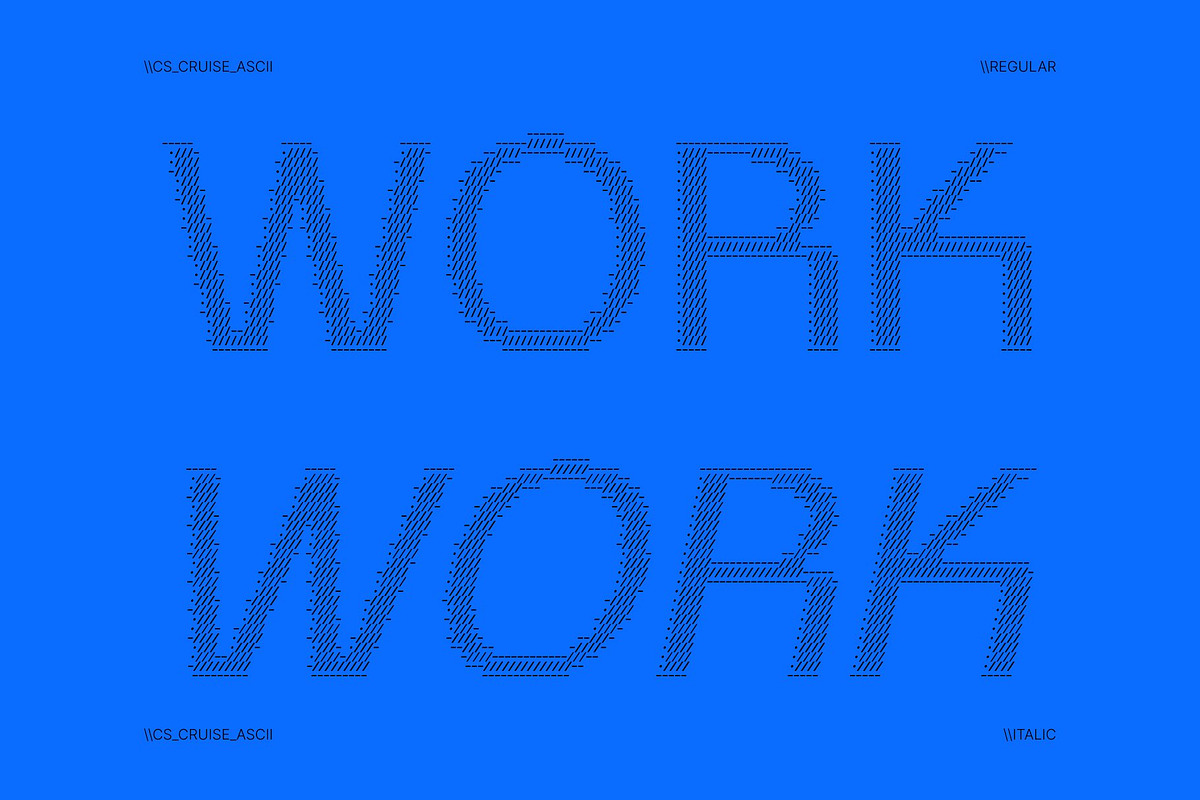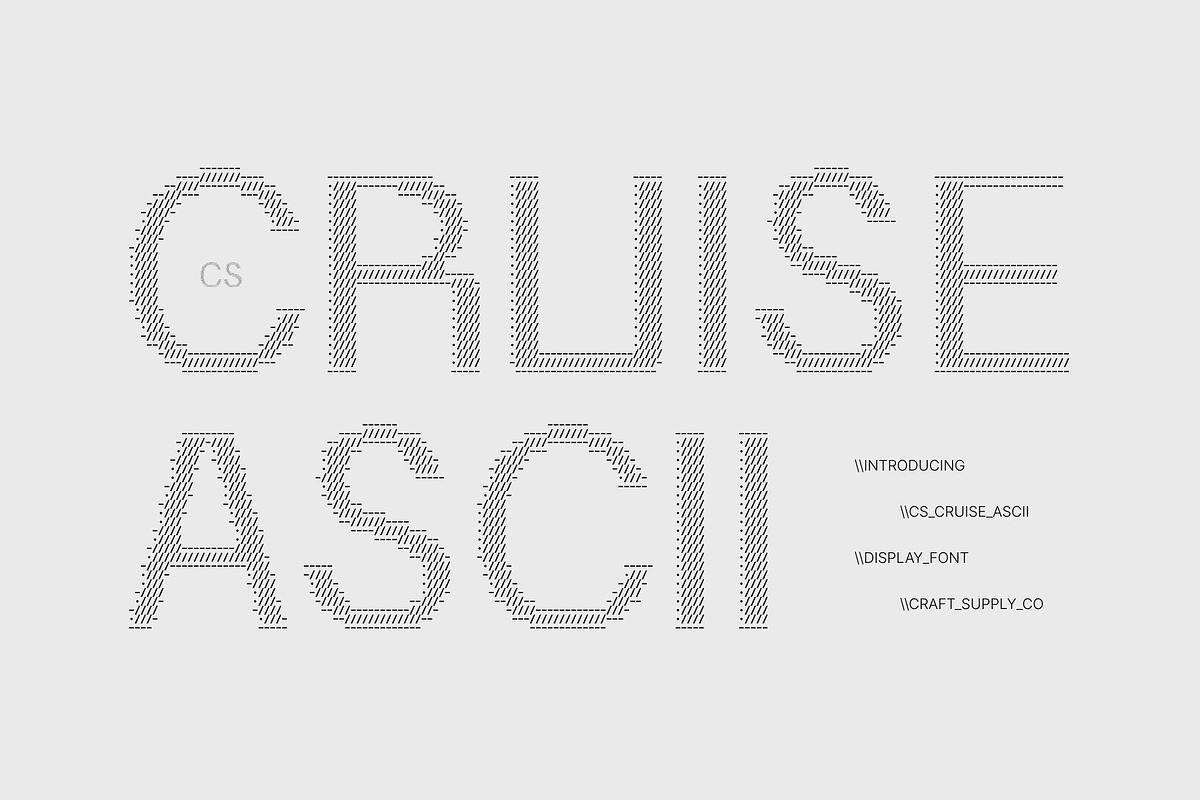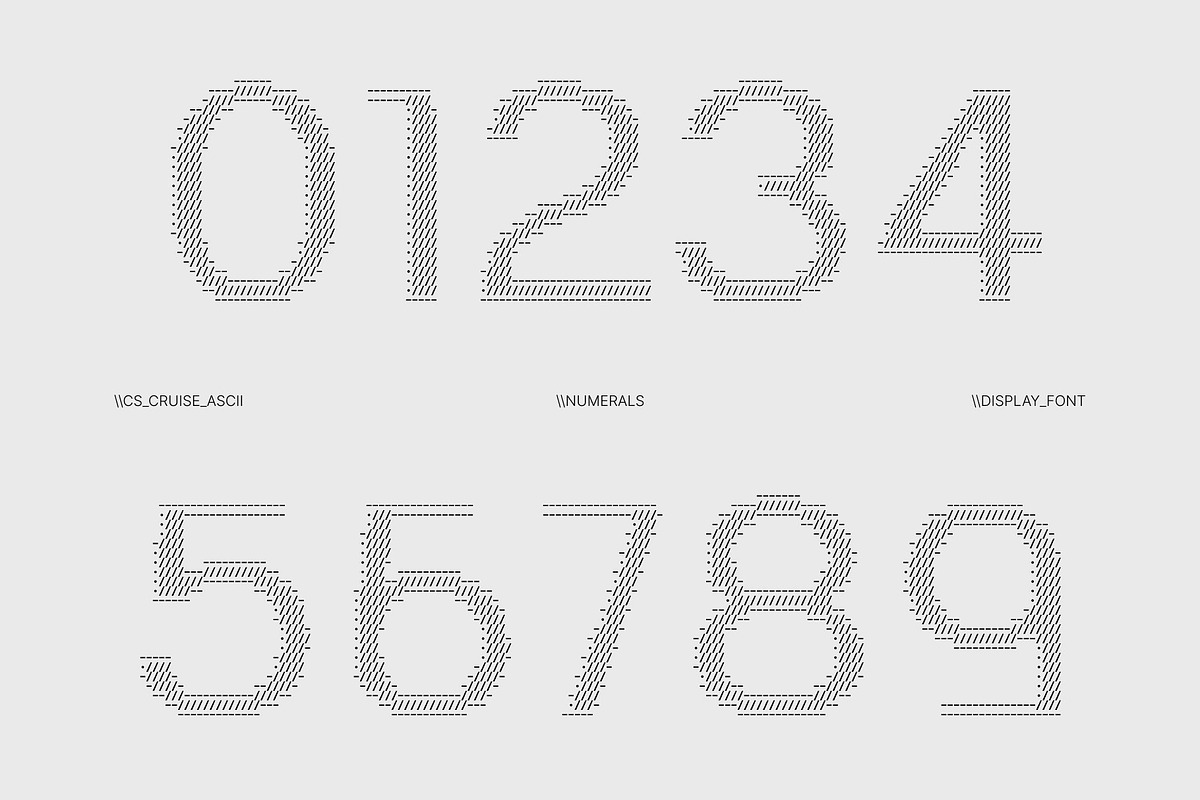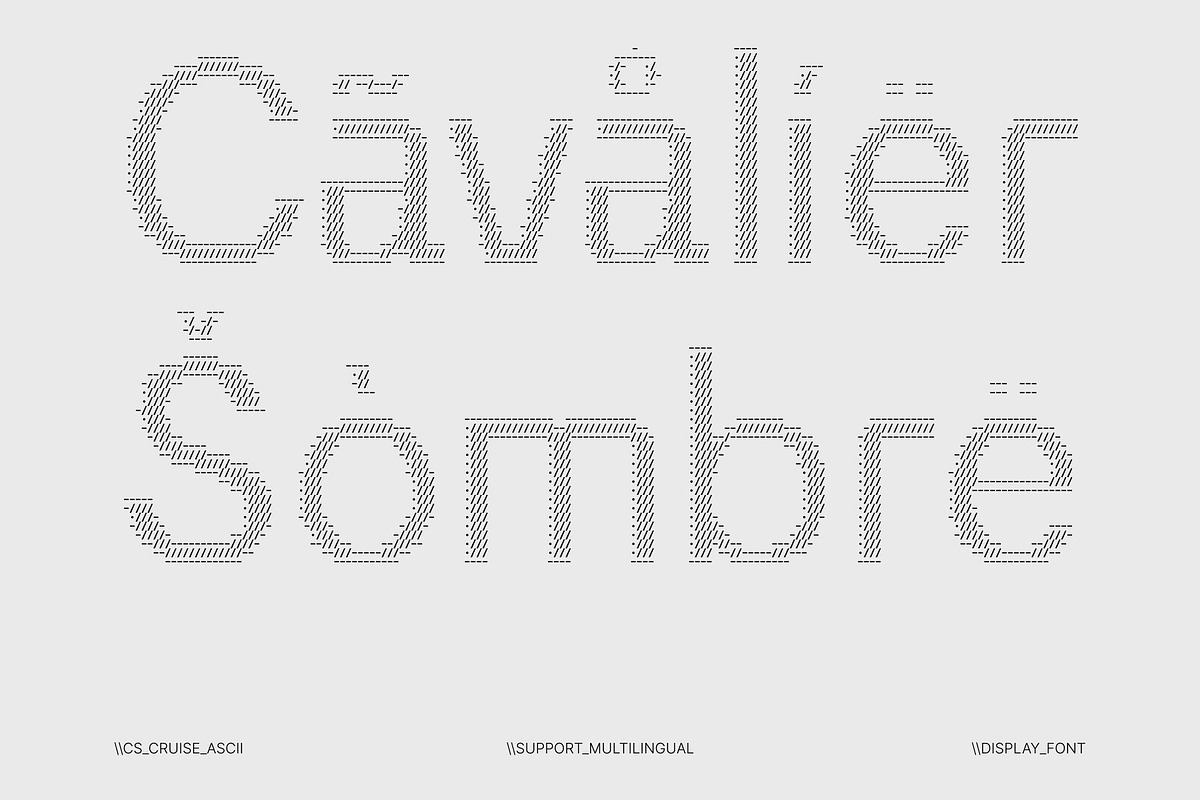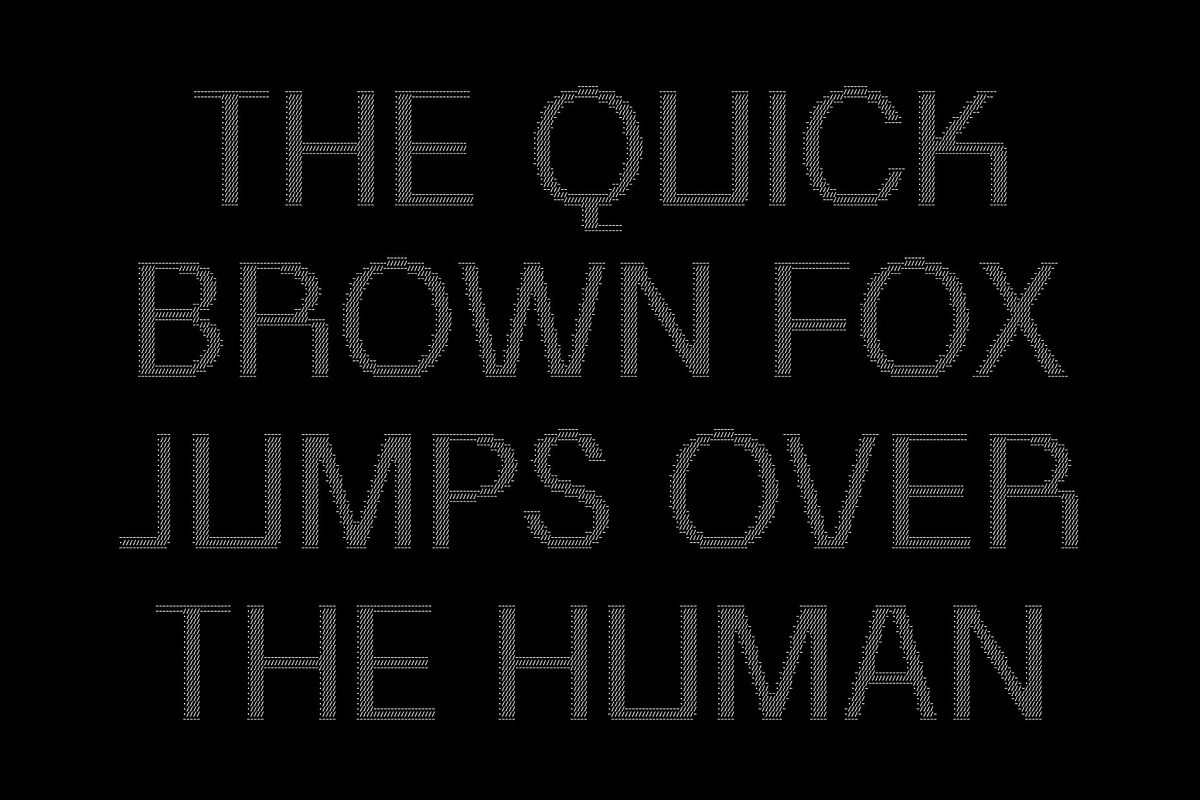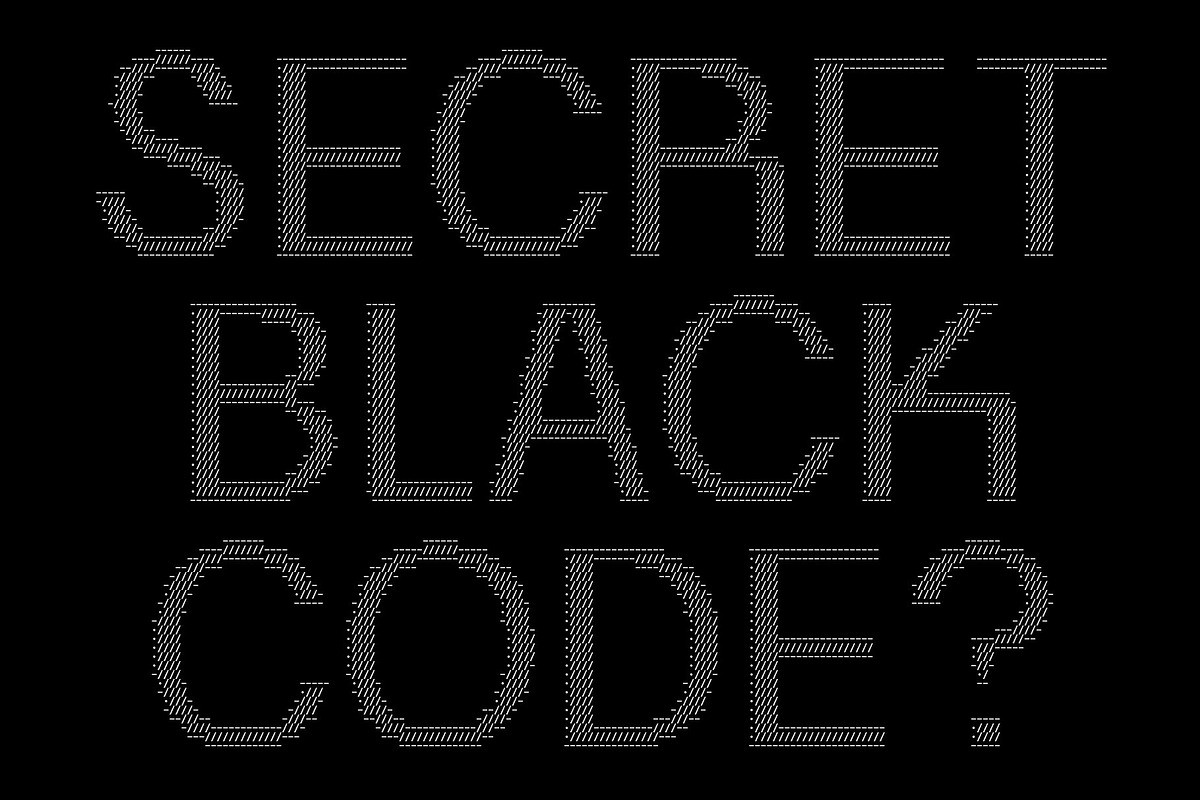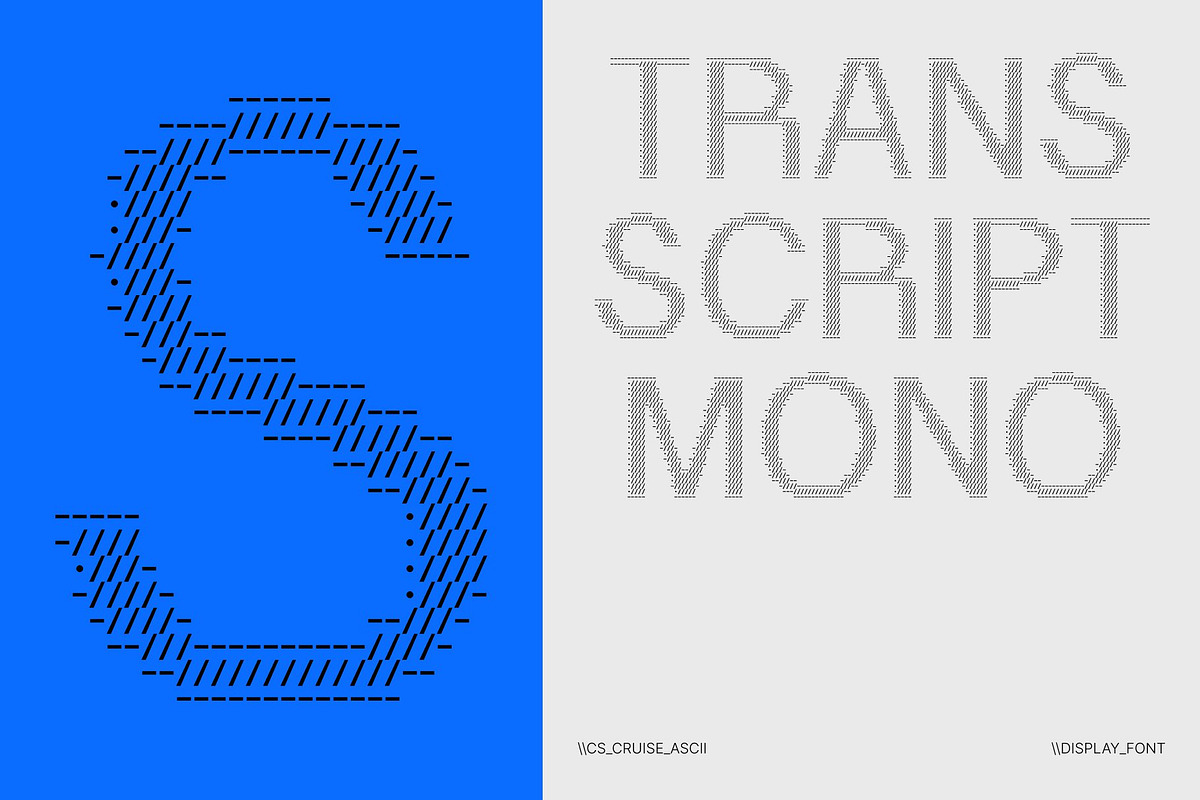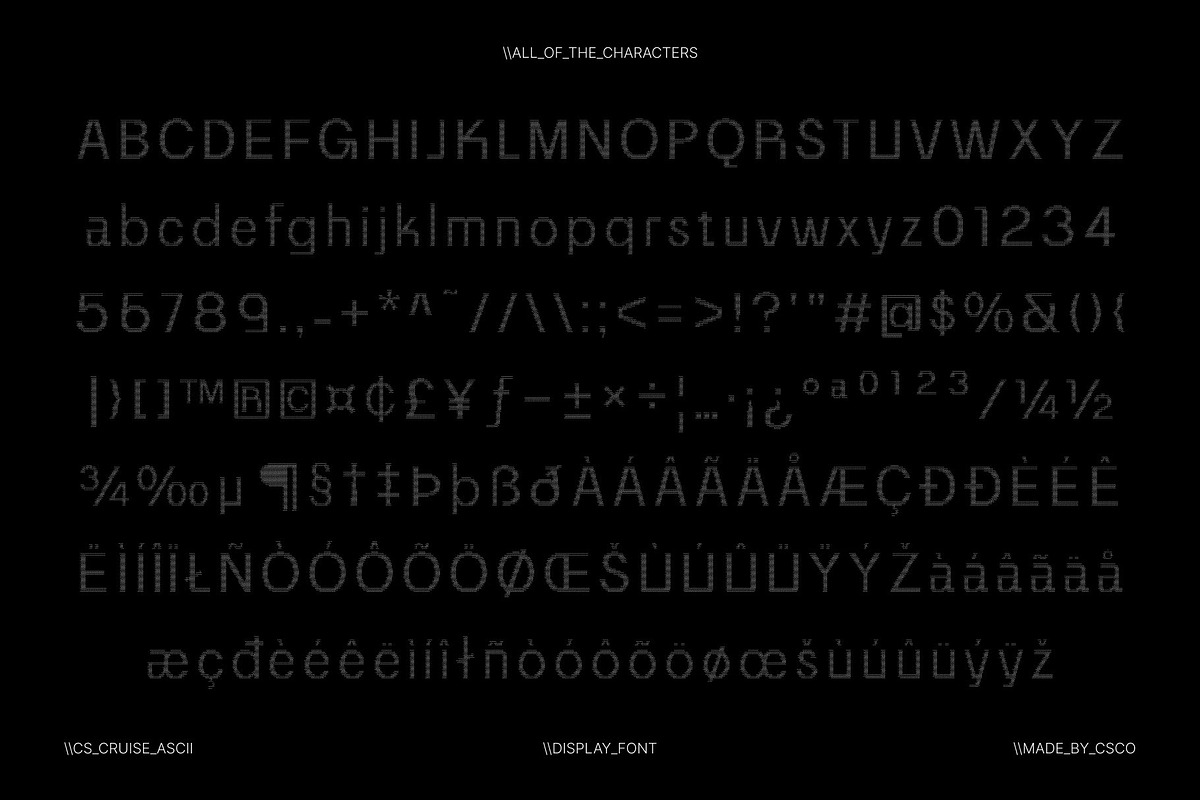
CS Cruise Ascii
CS Cruise Ascii – Modern Font: Contemporary Elegance in Digital Form
Clean Contemporary Design Reimagined in ASCII This transforms the sleek simplicity of a modern sans serif into a striking ASCII display font. Each character is carefully constructed from arranged symbols, turning text into decorative digital compositions that feel fresh, clean, and visually engaging. This unique approach preserves the minimalist structure of the original design while adding a distinctive technological texture that immediately captures attention.
Minimalism with a Stylish Digital Edge The balanced proportions and smooth letterforms maintain a contemporary and professional tone, while the ASCII styling introduces an artistic layer of visual detail. This fusion of simplicity and digital creativity gives this font a refined personality that feels modern, elegant, and expressive across a wide range of design styles.
Perfect for Modern Branding and Creative Projects This font adapts beautifully to branding materials, websites, advertisements, posters, and social media graphics. Its clean structure ensures readability, while the ASCII construction adds a unique visual signature that helps designs stand out in crowded digital spaces.
Navigate Designs with Modern Elegance Designed for creators who value clarity and contemporary aesthetics, this font offers a versatile typographic solution for modern communication. Whether used in corporate identities, editorial layouts, or digital campaigns, it delivers a polished and confident presence. With its blend of minimalist design and ASCII artistry.